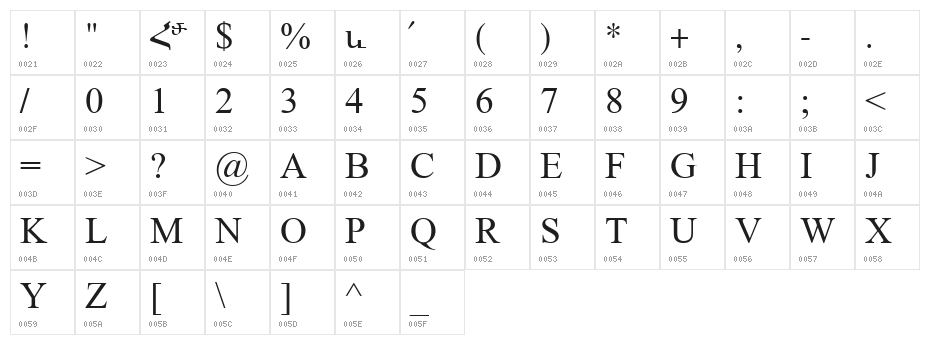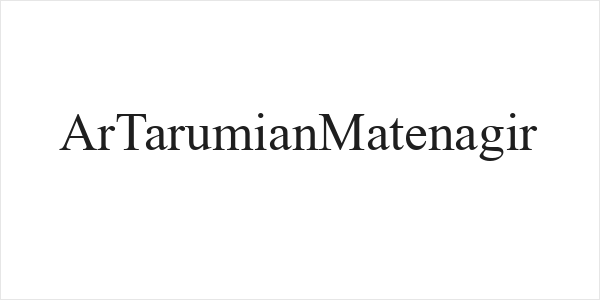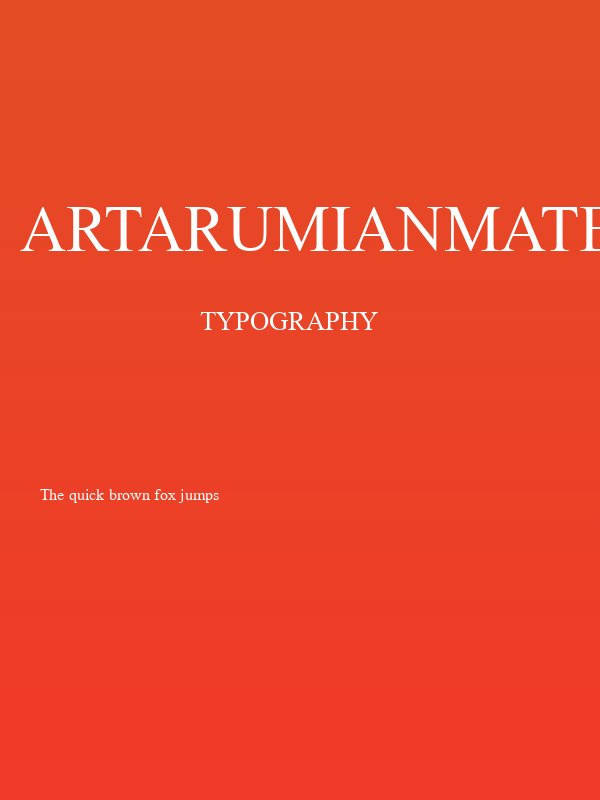
ArTarumianMatenagir Font
ArTarumianMatenagir Description
This font features a classic serif style with elegant and refined strokes. The uppercase letters are bold and commanding, while the lowercase letters maintain a balanced and harmonious appearance. The numerals are clear and distinct, ensuring readability. Special characters are thoughtfully designed, complementing the overall aesthetic. The font's design is reminiscent of traditional typography, offering a timeless appeal suitable for various applications. Its high contrast between thick and thin strokes adds to its sophistication, making it ideal for formal and professional use.